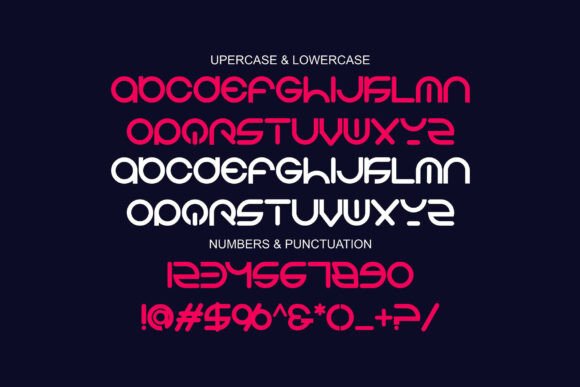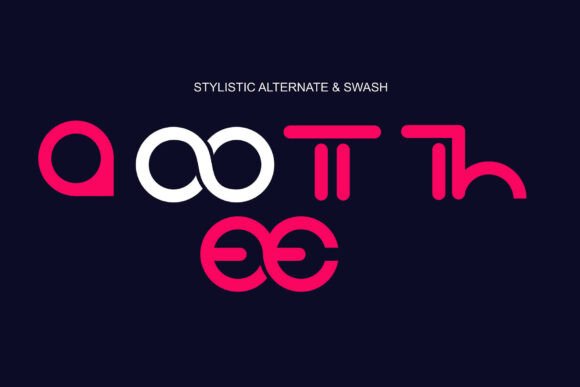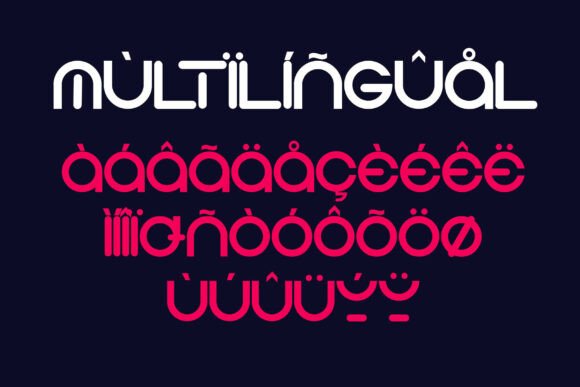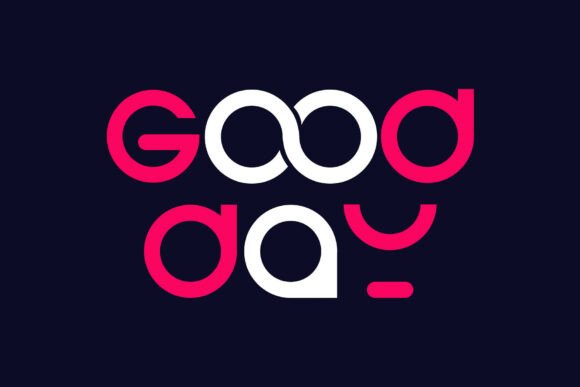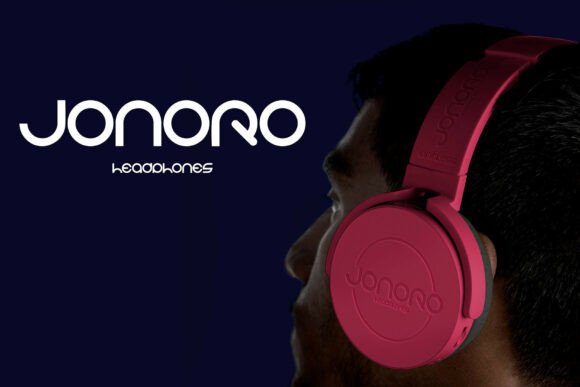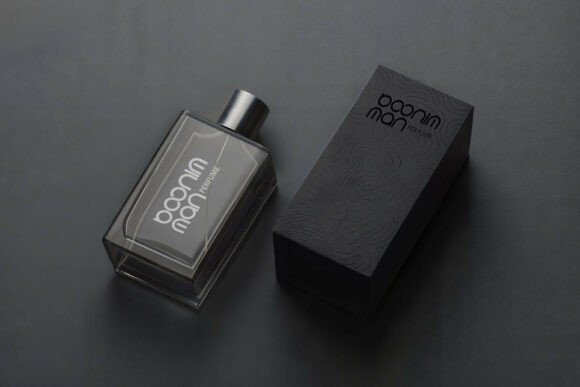
Introduction to Modera Font Font
Fonts play a crucial role in design, and the Modera Font font is a typeface that brings both character and versatility to any project. Whether you’re working on a branding project, a website, or a print design, the Modera Font font offers a unique style that can elevate your work.
Modera provides a seamless blend of geometrical accuracy and modern elegance.
Structured from pristine circular forms and smooth endings, the font lends itself to a striking yet welcoming atmosphere that suits contemporary branding, digital designs, and editorial formats Each character is skillfully crafted to maintain a rhythmic flow that emanates a stylish, unyielding charisma, perfect for the fields of fashion, music, tech, and lifestyle.
Key Features of Modera Font Font
Why Choose Modera Font Font?
The Modera Font font is more than just a typeface – it’s a design tool that helps you communicate your message with style and clarity. Its unique character set and versatile design make it suitable for a wide range of applications, from elegant invitations to bold headlines.
With its carefully crafted letterforms and balanced proportions, the Modera Font font ensures readability and visual appeal across all mediums.
What makes Modera Font font special?
The Modera Font font stands out with its unique design, exceptional readability, and versatility across various design applications.